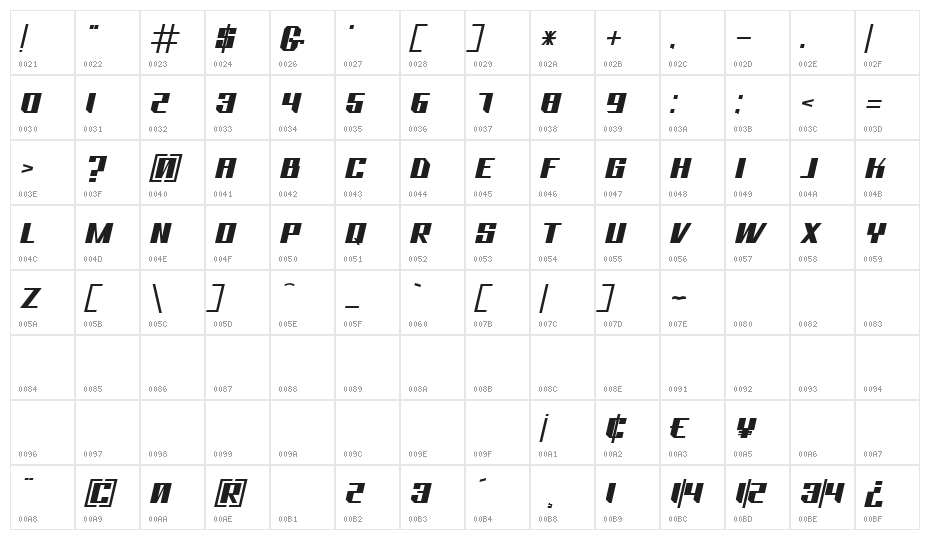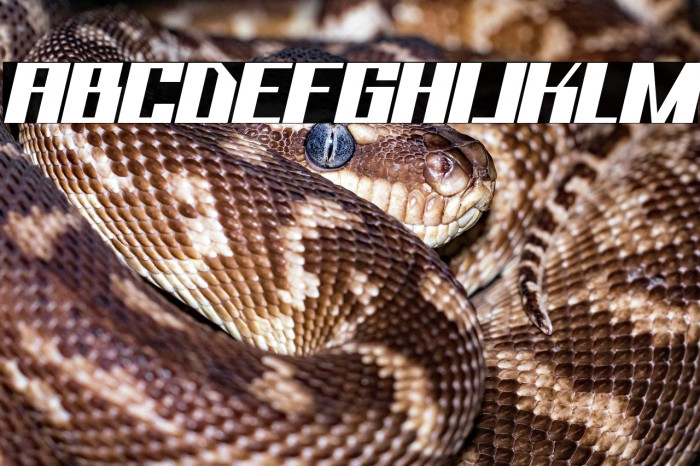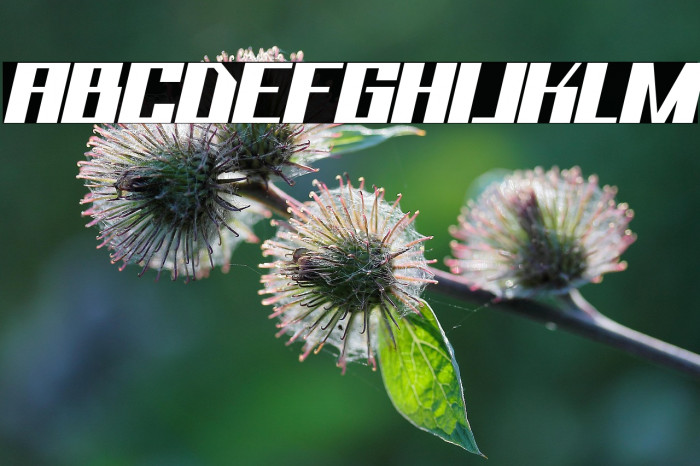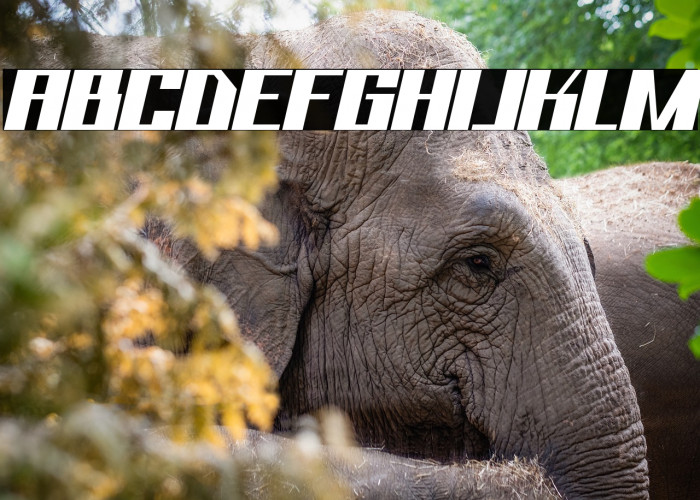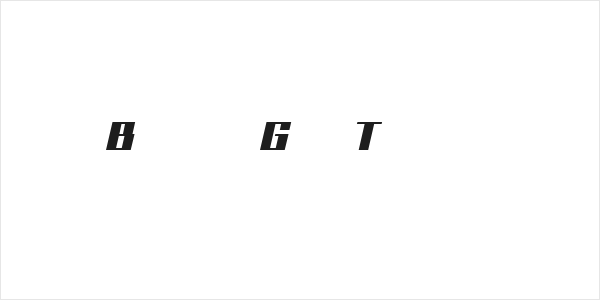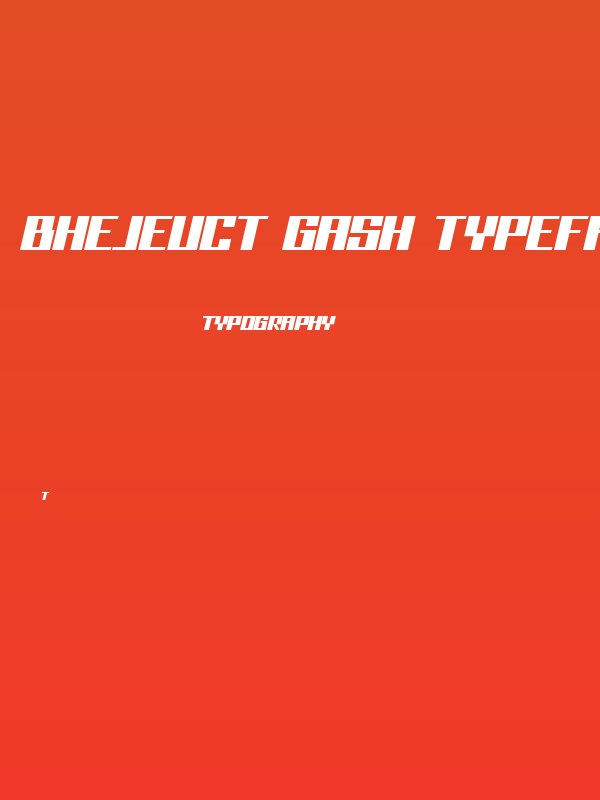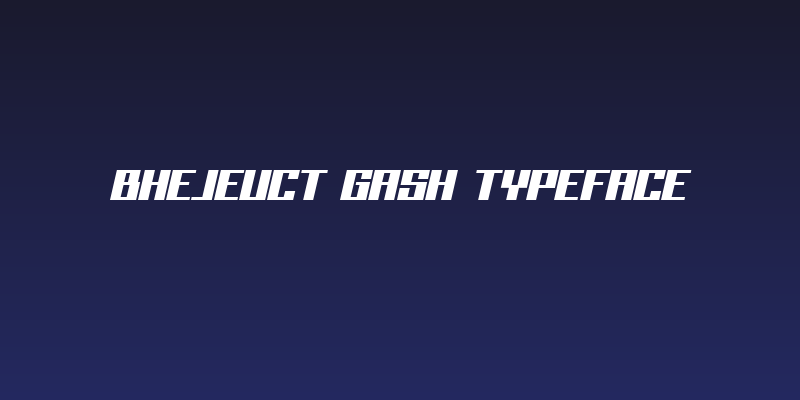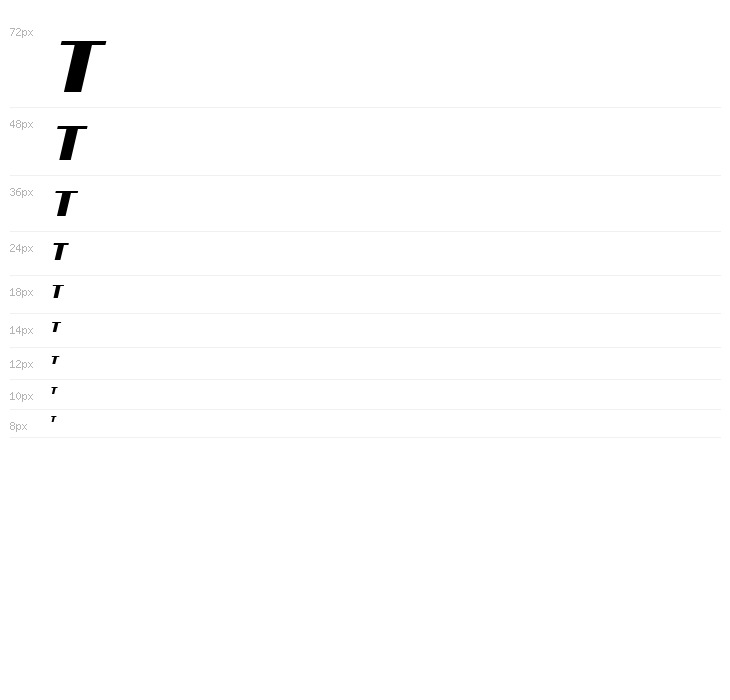
Bhejeuct Gash Typeface Font
Bhejeuct Gash Typeface Description
This typeface features a bold and dynamic design with sharp, angular edges and a strong geometric influence. The uppercase letters are particularly striking, with a futuristic and aggressive style that makes a bold statement. The lowercase letters maintain the same angular aesthetic, ensuring consistency throughout the typeface. Numbers and special characters are designed to match the overall style, providing a cohesive look. The font's unique design is ideal for projects that require a modern and impactful appearance.
| Proposed Projects | Ideal for sports branding, video game titles, sci-fi movie posters, and dynamic logo designs. |